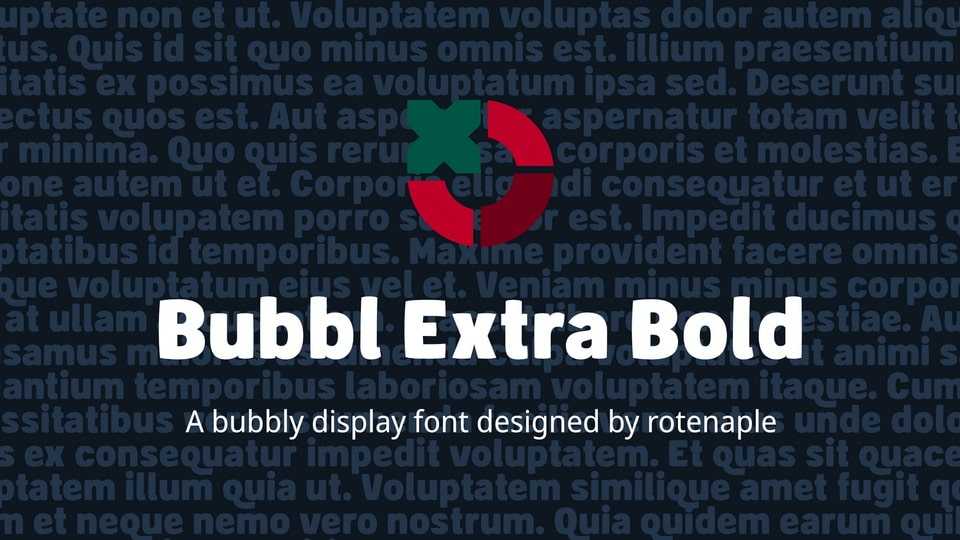
Download Bubbl Extra Bold font, a fun and bold display font with a bubbly vibe. Great for all sorts of projects, it includes a broad selection of characters suitable for many Latin-based scripts and more.
Designer: Edward Lam